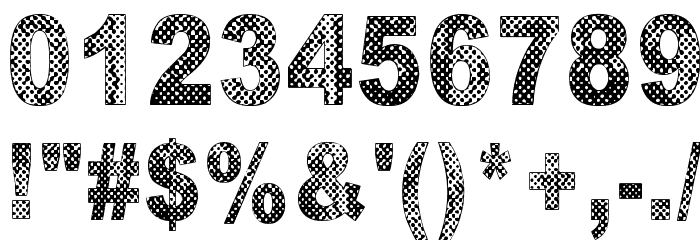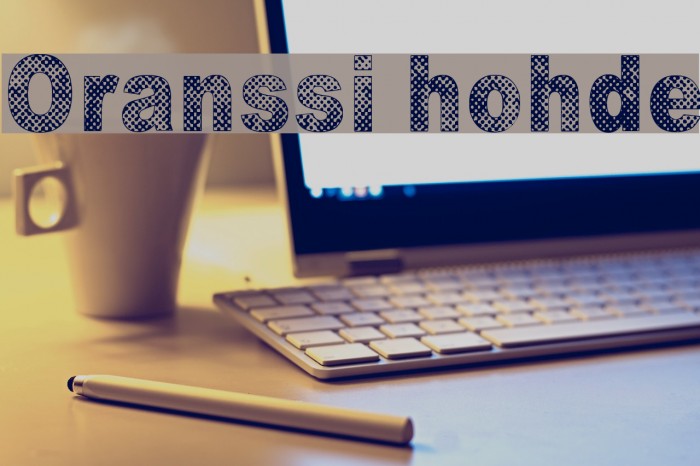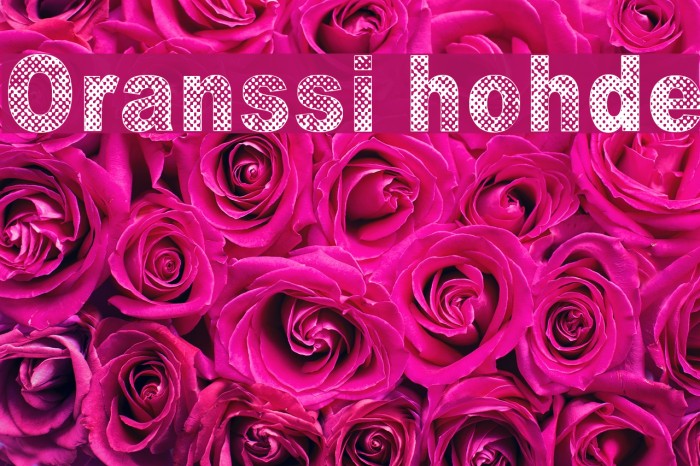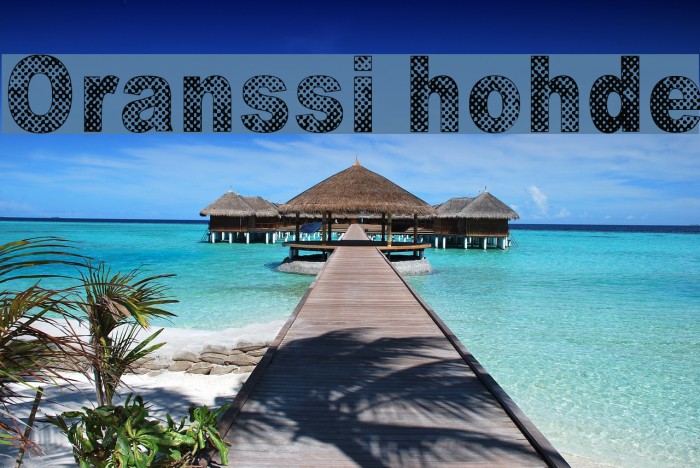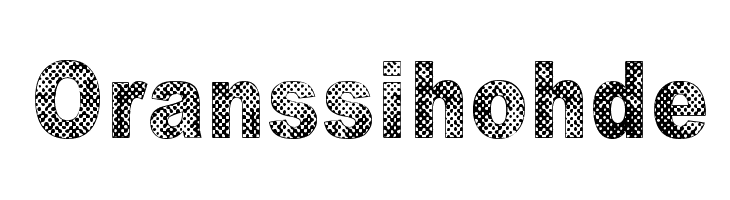
Oranssi hohde Font
This font features a bold and striking design with a unique polka dot pattern filling each character. The uppercase and lowercase letters maintain a consistent style, with rounded edges and a playful yet structured appearance. The numerals and special characters follow the same design, ensuring uniformity across all elements. The font's decorative nature makes it stand out, ideal for projects that require a touch of whimsy and creativity. Its boldness and distinctive pattern make it suitable for eye-catching headlines, posters, and branding materials.
A bold, polka dot patterned font perfect for decorative and playful designs.
- Proposed Projects: Ideal for posters, branding, children's books, and creative advertisements.
- Use Case: Headlines, Posters, Branding